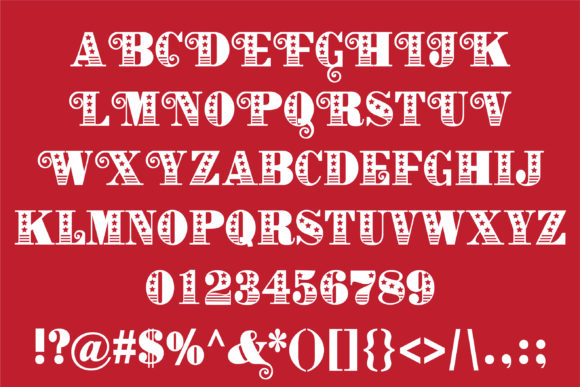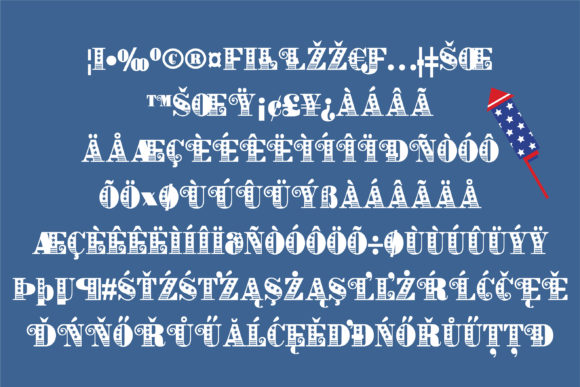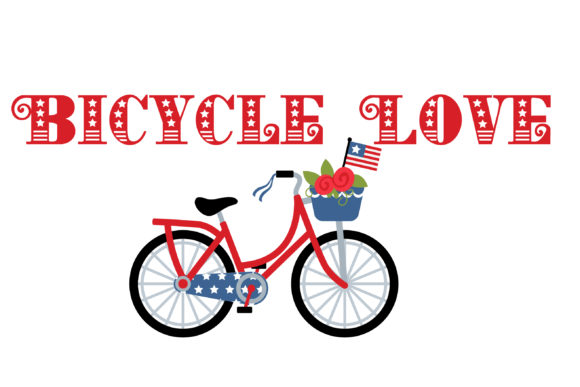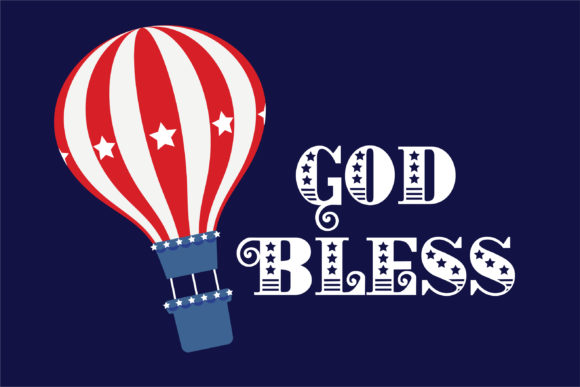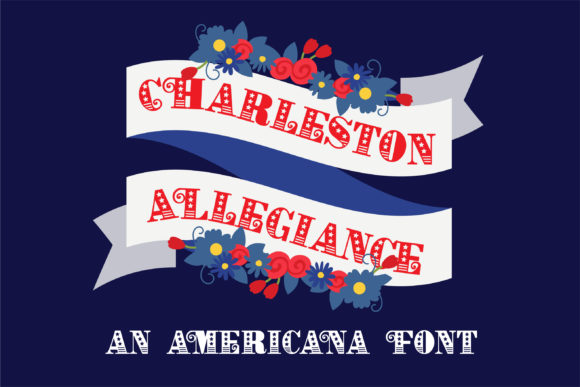
Introducing the Charleston Allegiance Font: A Patriotic Addition to Your Design Arsenal
Are you a designer or crafter looking for the perfect font to add a touch of American patriotism to your project? Look no further than the Charleston Allegiance font. This stunning font is designed to celebrate all things American, making it the ideal choice for Stars & Stripes-themed projects, Fourth of July celebrations, and any other patriotic endeavor.
What is the Charleston Allegiance Font?
The Charleston Allegiance font is a carefully crafted typeface that embodies the spirit of American patriotism. With its classic and elegant design, this font is perfect for adding a touch of sophistication and nostalgia to your projects. Whether you’re designing a logo, creating a banner, or crafting a handmade card, the Charleston Allegiance font is sure to make a statement.
Key Features of the Charleston Allegiance Font
• Patriotic theme: The Charleston Allegiance font is specifically designed to evoke a sense of American patriotism, making it perfect for Fourth of July celebrations, Memorial Day, and other Stars & Stripes-themed projects.
• Classic and elegant design: This font features a timeless design that is both classic and elegant, making it suitable for a wide range of projects, from formal to informal.
• Easy to read: The Charleston Allegiance font is designed to be easy to read, even at small sizes, making it perfect for use in a variety of applications, from signage to digital media.
• Versatile: This font can be used for a wide range of projects, including logos, banners, signs, cards, and more.
How to Use the Charleston Allegiance Font
The Charleston Allegiance font can be used in a variety of ways, from digital design to handmade crafting. Here are a few ideas to get you started:
• Patriotic party decorations: Use the Charleston Allegiance font to create custom banners, signs, and decorations for your Fourth of July party or other patriotic celebration.
• Handmade cards and gifts: Add a touch of American patriotism to your handmade cards and gifts with the Charleston Allegiance font.
• Logo design: Use the Charleston Allegiance font to create a custom logo for your business or organization that celebrates American patriotism.
• Digital media: Use the Charleston Allegiance font in your digital media, such as social media graphics, blog posts, and website designs.
Why Choose the Charleston Allegiance Font?
There are many fonts available that claim to be patriotic, but the Charleston Allegiance font stands out from the rest. Here are a few reasons why:
• Unique design: The Charleston Allegiance font features a unique design that is both classic and elegant, making it a standout from other patriotic fonts.
• High-quality: This font is carefully crafted to ensure that it is of the highest quality, with clean lines and precise lettering.
If you’re looking for a font that celebrates all things American, look no further than the Charleston Allegiance font. With its classic and elegant design, this font is perfect for adding a touch of patriotism to any Stars & Stripes-themed project. Whether you’re a designer or crafter, the Charleston Allegiance font is sure to become a valuable addition to your arsenal.